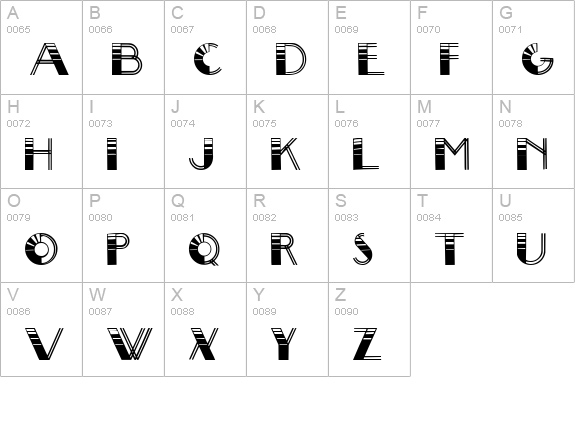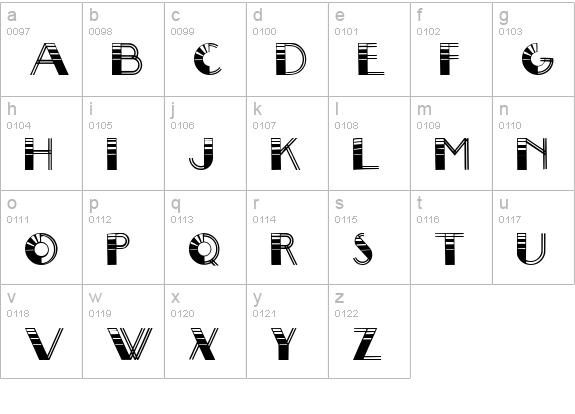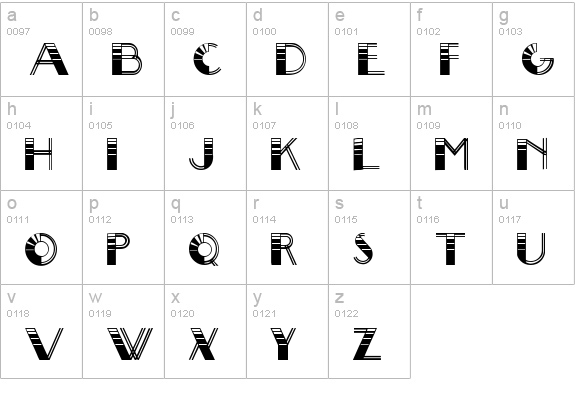
Introducing Big Lou font, a bold and eye-catching typeface designed to make a statement. With its strong, thick lines and distinctive style, Big Lou adds a touch of personality to any project. This versatile font is perfect for headlines, banners, logos, and more. The best part? Big Lou is completely free to download at FontsMarket.com! Now you can add this unique font to your collection without breaking the bank. Don't miss out on the opportunity to elevate your designs with the striking Big Lou font. Download it today and let your creativity shine!